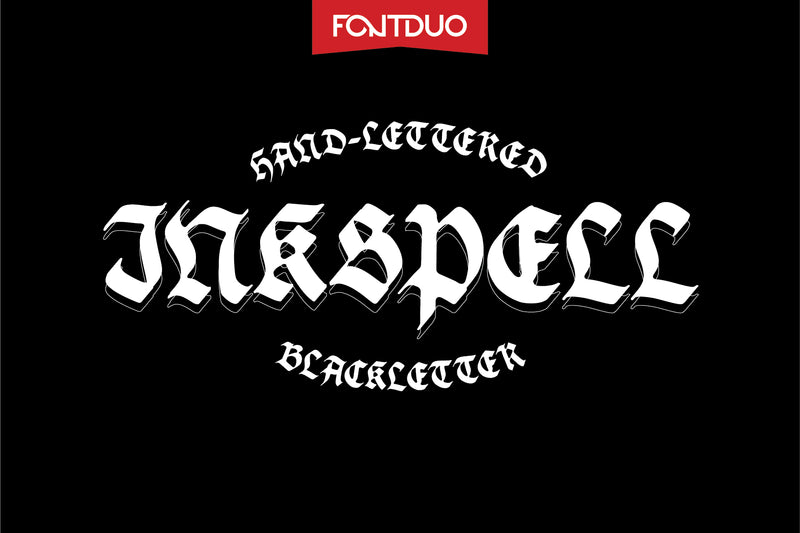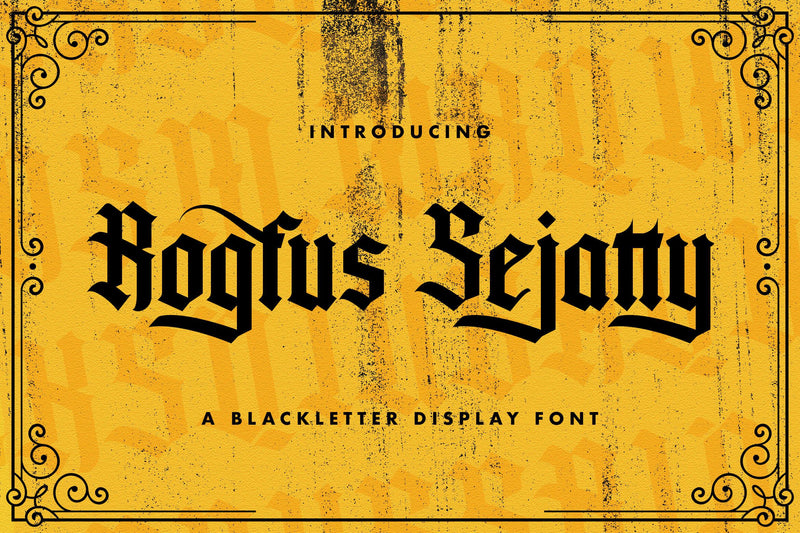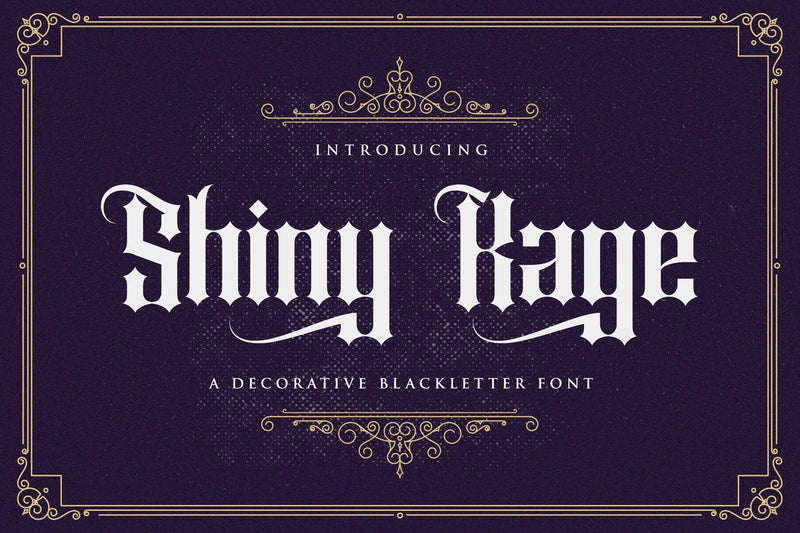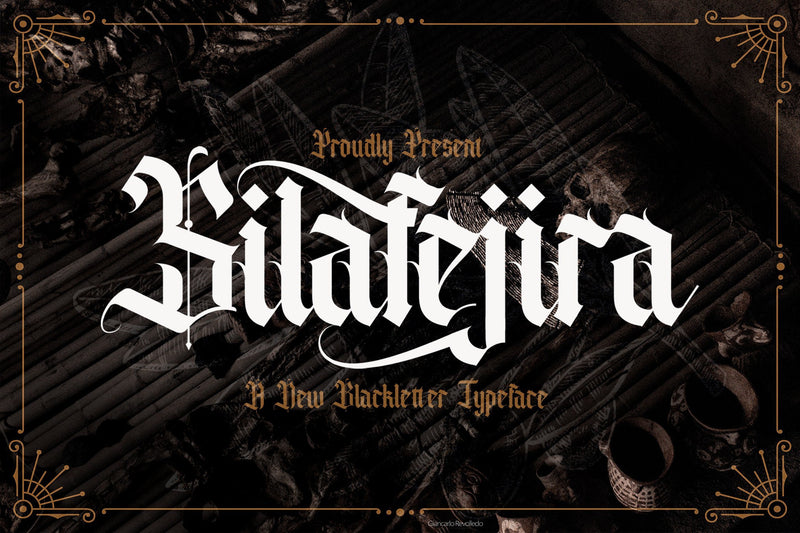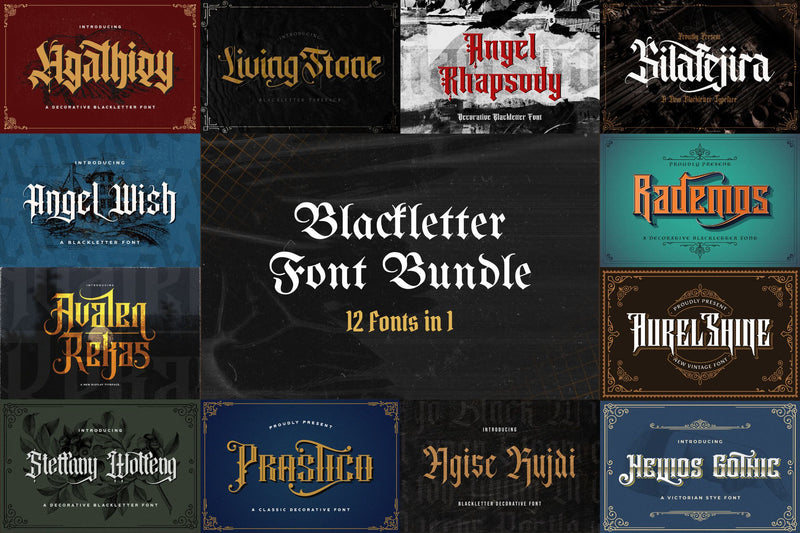
Tattoo blackletter fonts are bold, expressive, and timeless. Inspired by classic tattoo lettering, they bring an edgy, handcrafted feel to digital and print projects. Whether you’re working on branding, invitations, posters, or social media graphics, tattoo fonts offer a unique way to infuse personality and style into your designs.
Tattoo-style fonts are inspired by traditional tattoo art, which often features strong, decorative lettering that makes a statement. These fonts typically have thick lines, ornate details, and sometimes a vintage or “old-school” look reminiscent of sailor tattoos and American traditional art. Many tattoo fonts emulate hand-drawn elements and stylized serifs, creating a dynamic and authentic look that captures the art form’s rebellious and timeless spirit.
There’s a wide variety of tattoo-style fonts available, from bold, blocky typefaces to elegant script styles. Use these tattoo blackletter fonts in branding and logos, on event posters, flyers, clothing, and even in greeting cards and invitations!
Quick tips to using tattoo blackletter fonts
To effectively use tattoo-style fonts in design, consider limiting them to headings, logos, or accent text to keep readability high, and pairing them with clean, simple fonts like sans-serifs for balance. Play with vintage colors, grunge textures, and effects like shadows or distressing to enhance their authentic, inked feel. Always ensure the bold, decorative style of tattoo fonts aligns with the theme of your project, as they can clash with minimalist or modern designs.
Tattoo-style fonts are a powerful way to infuse attitude and personality into your designs. Whether you’re designing for print, digital, or apparel, they offer a timeless appeal that can make your work stand out. So, embrace the bold, expressive world of tattoo-inspired typography and let your creativity flow!